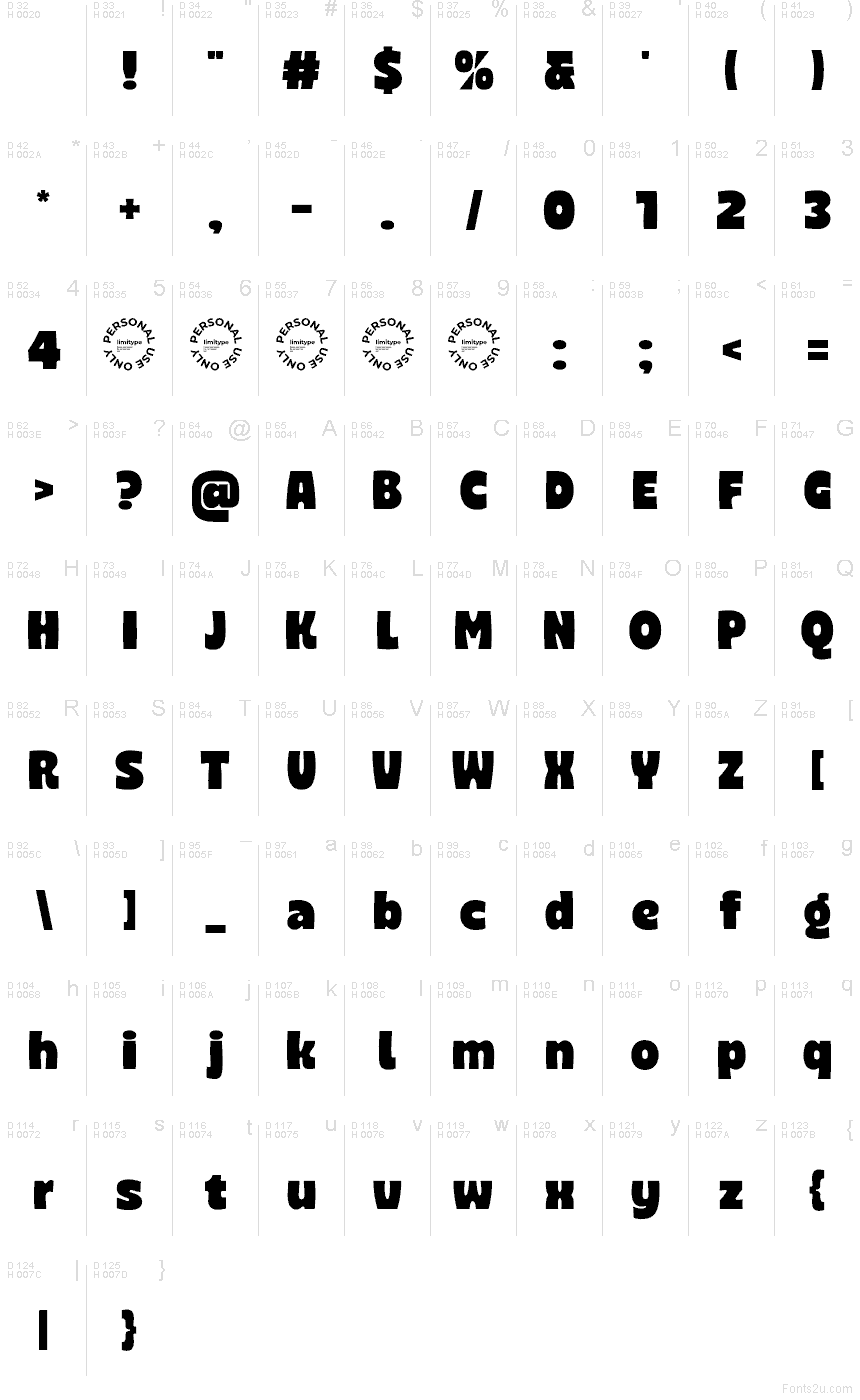
Chambs Demo Fat
Chambs Fat font by Limitype is a free cartoon display typeface with big, bubbly letters that feel like they’ve been cut from thick black foam. The shapes are soft and rounded, with heavy weight and tight rhythm that instantly fills space and grabs attention. There’s a playful wobble to the forms that keeps them lively without becoming messy, giving your titles a bold, punchy voice that still reads clearly at a glance.
Using Chambs Fat, your branding for kids’ products, snack packaging, comic titles, game logos, posters, and party invitations will jump off the page with chunky, energetic charm. This free font shines at large sizes where its dense silhouettes and friendly curves can really show. Pair Chambs Fat with a clean, light sans serif for small supporting text to keep your layouts fun but readable.